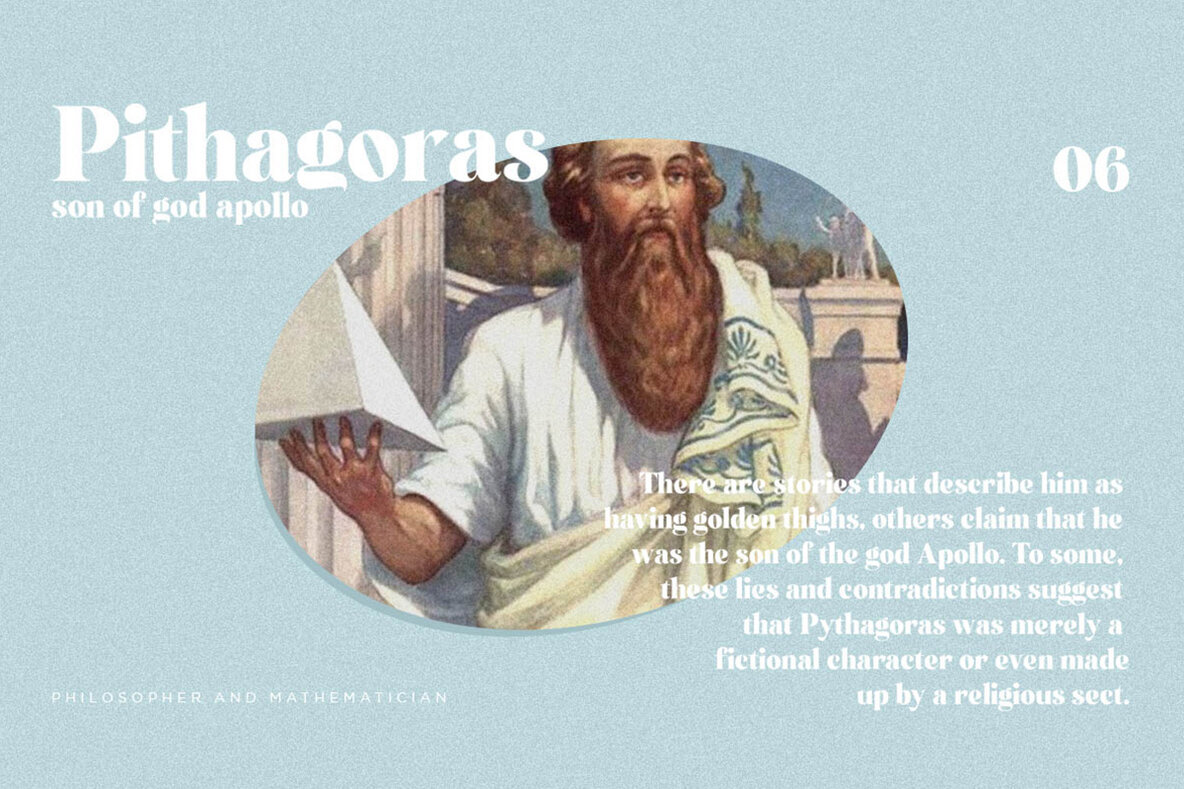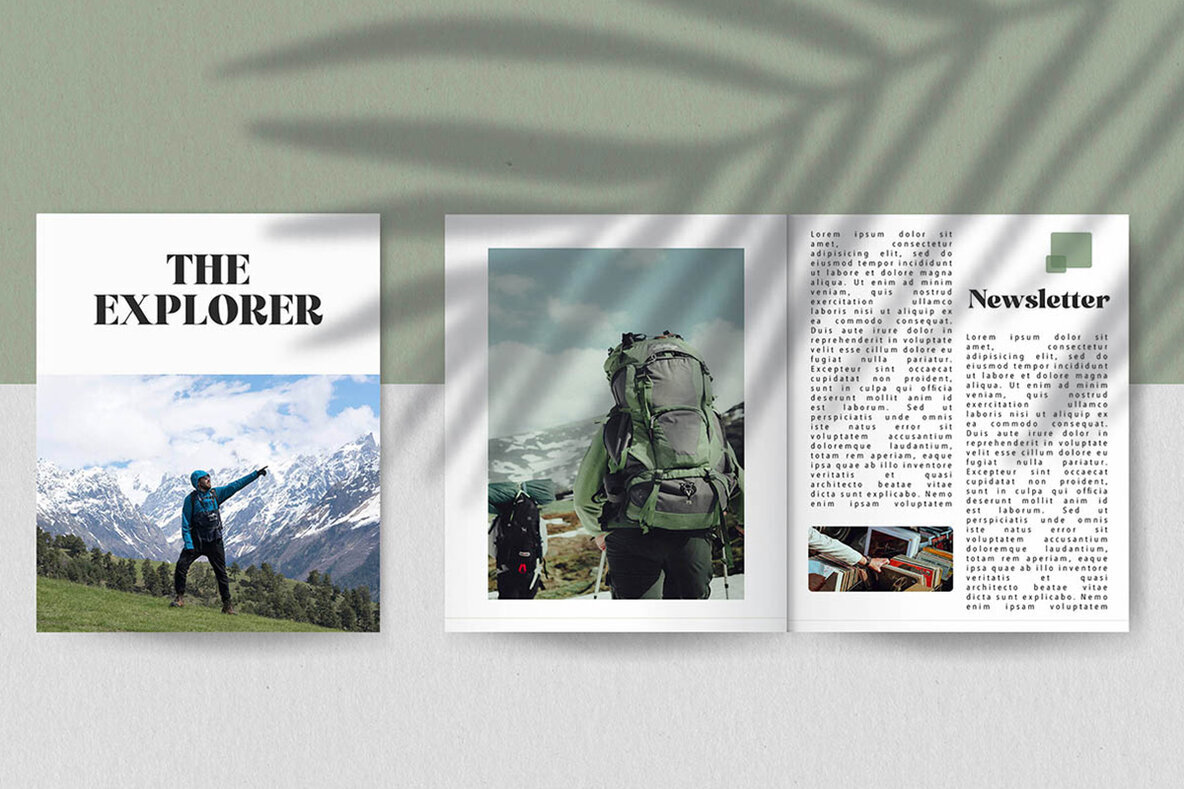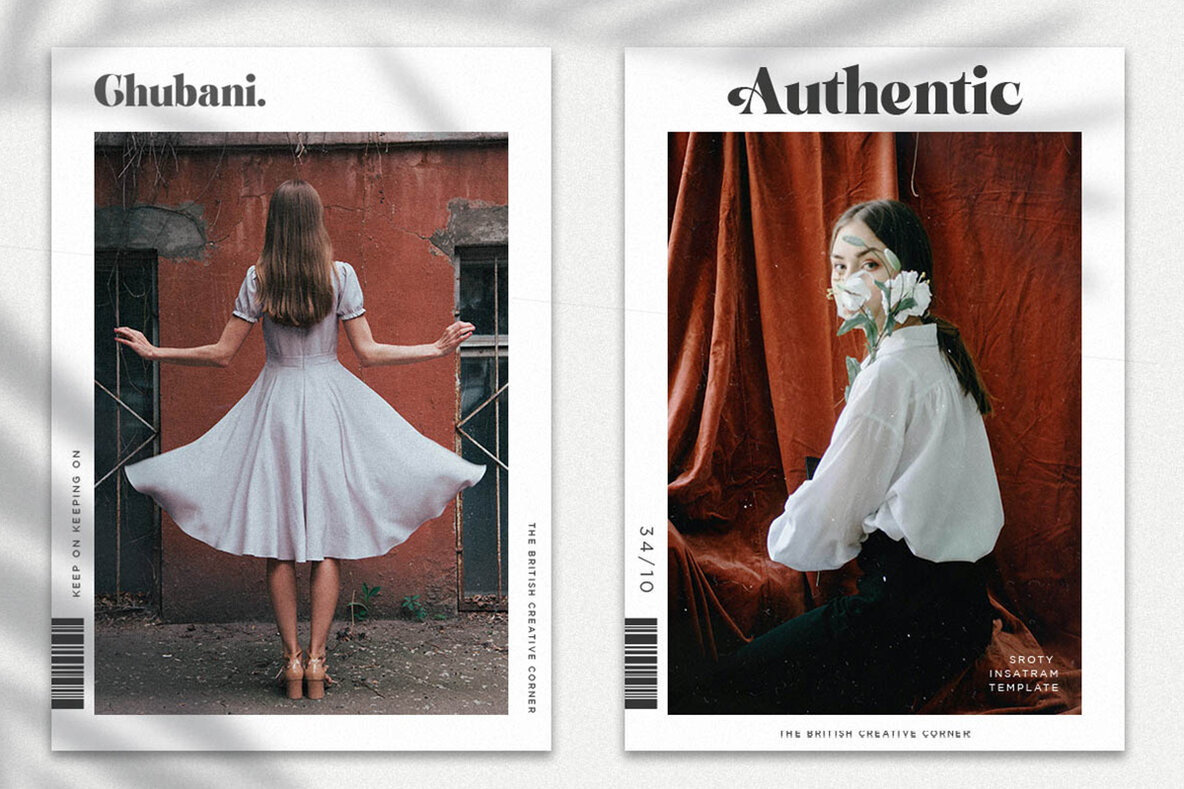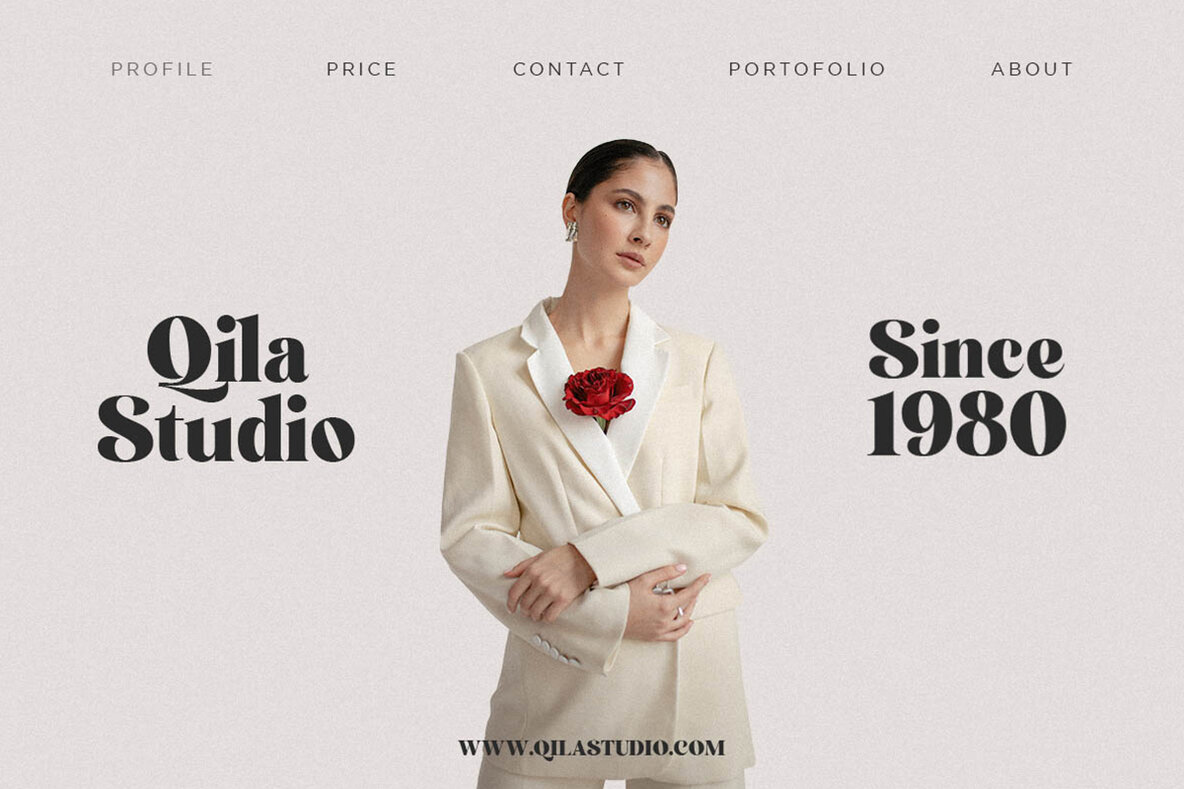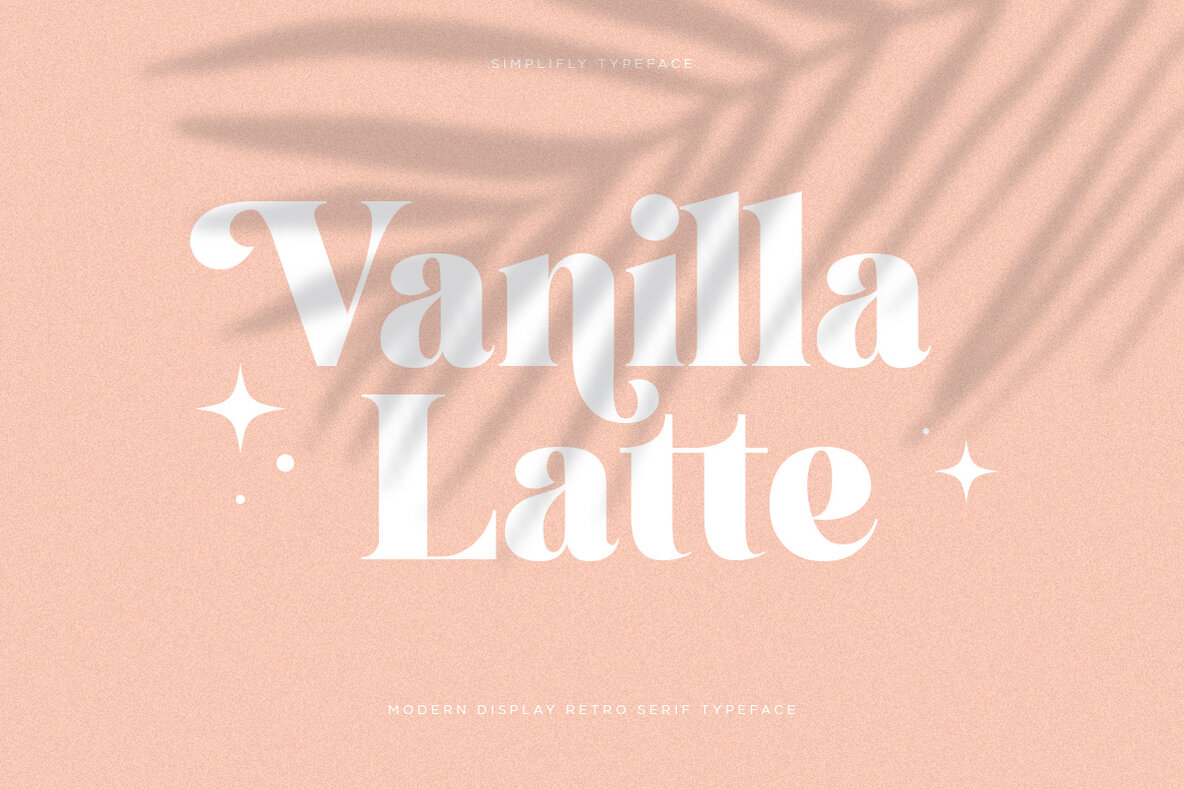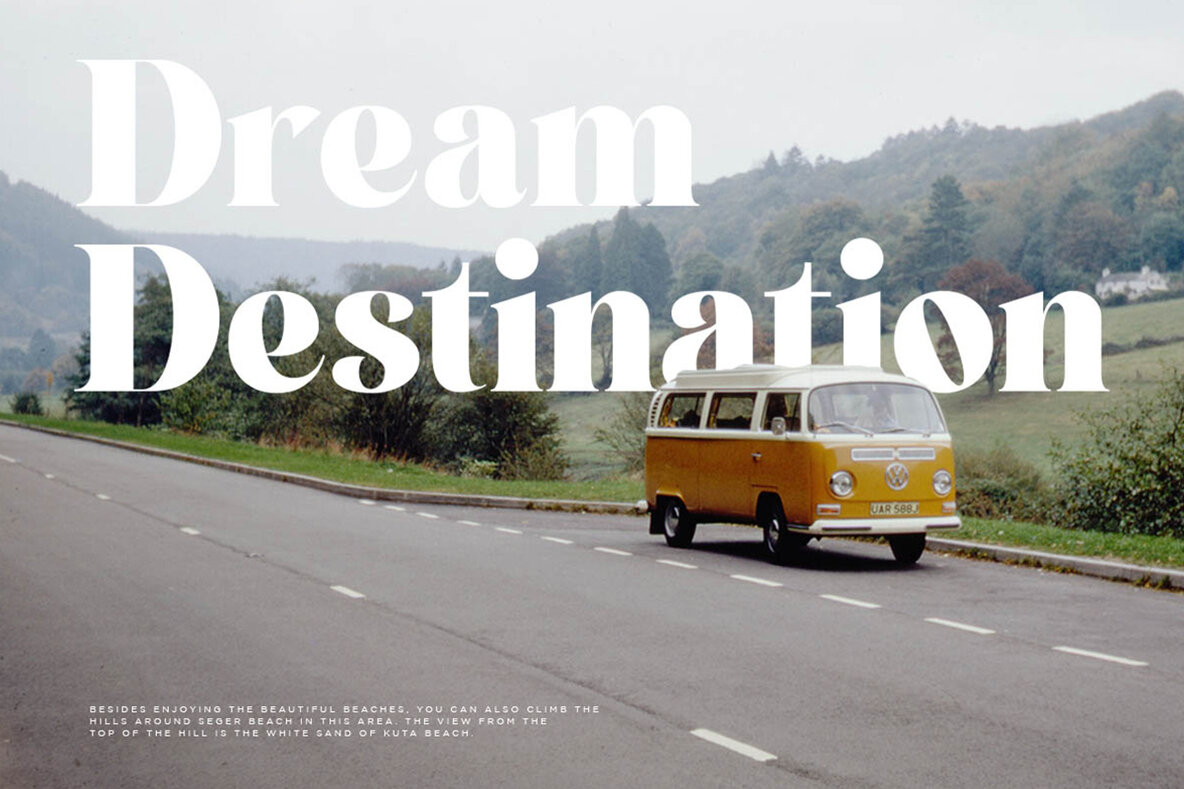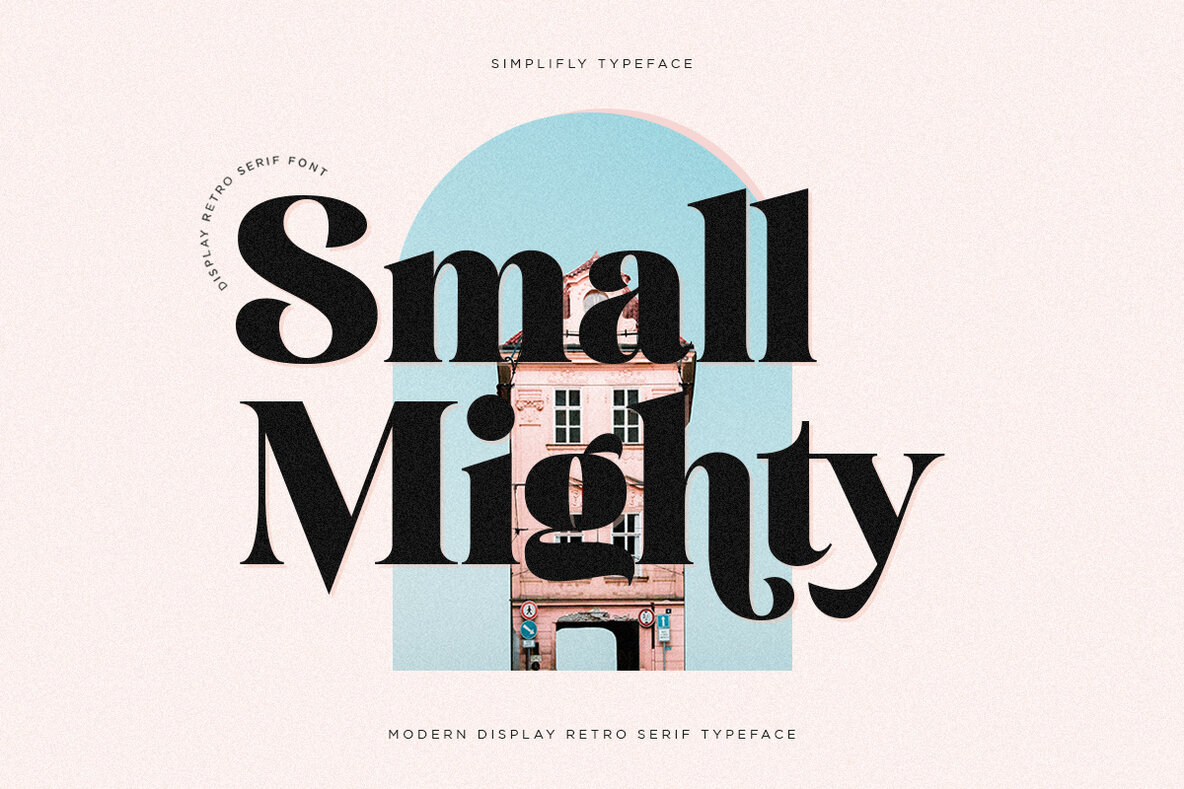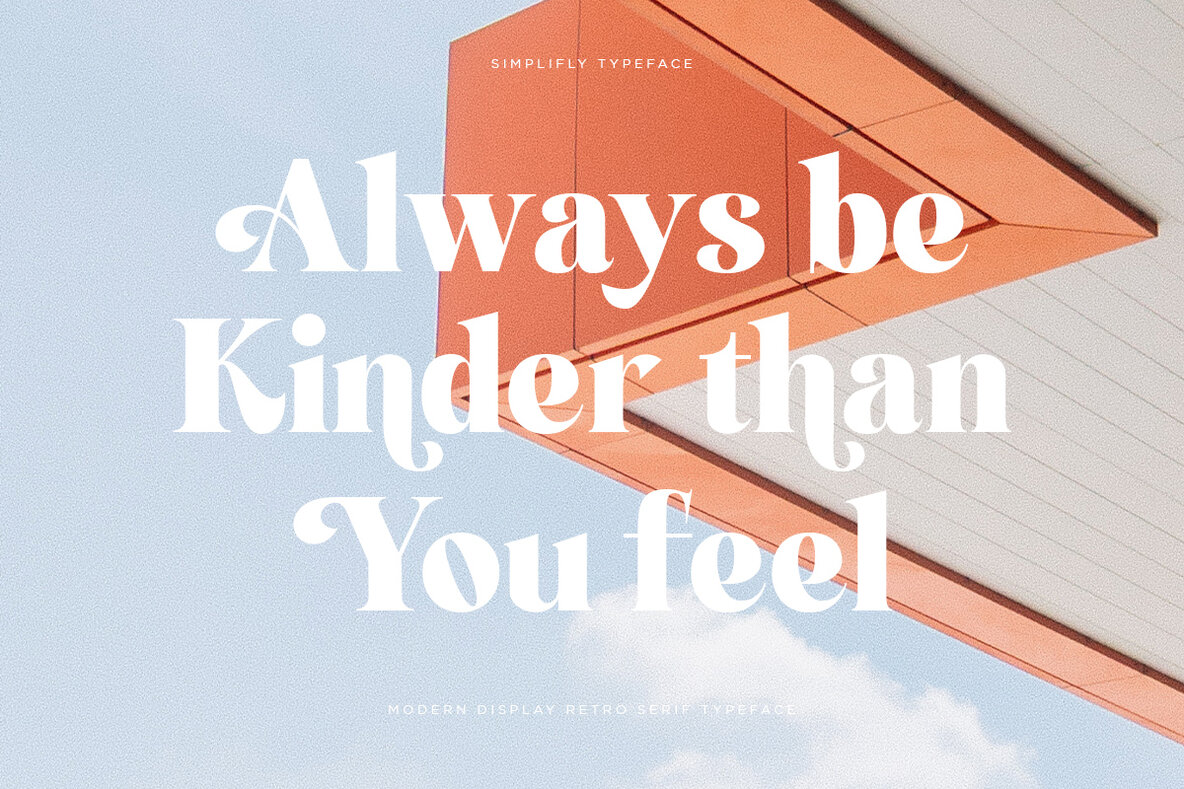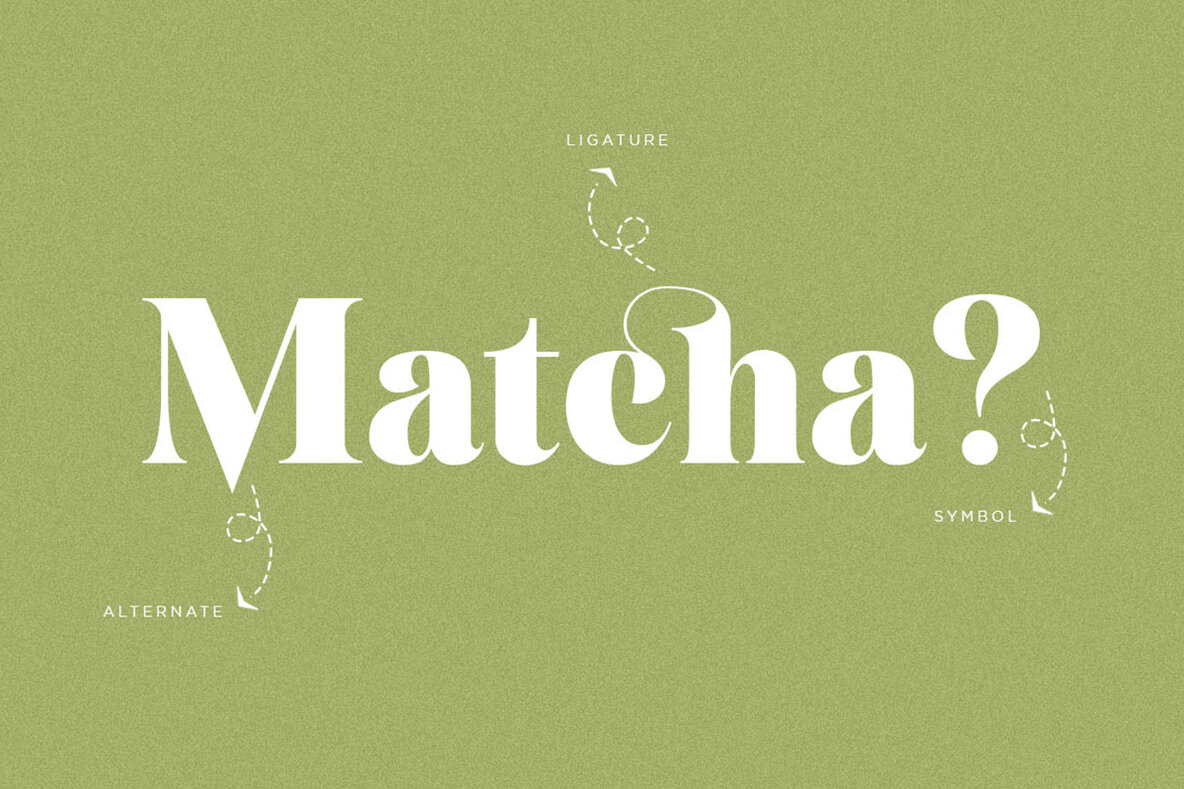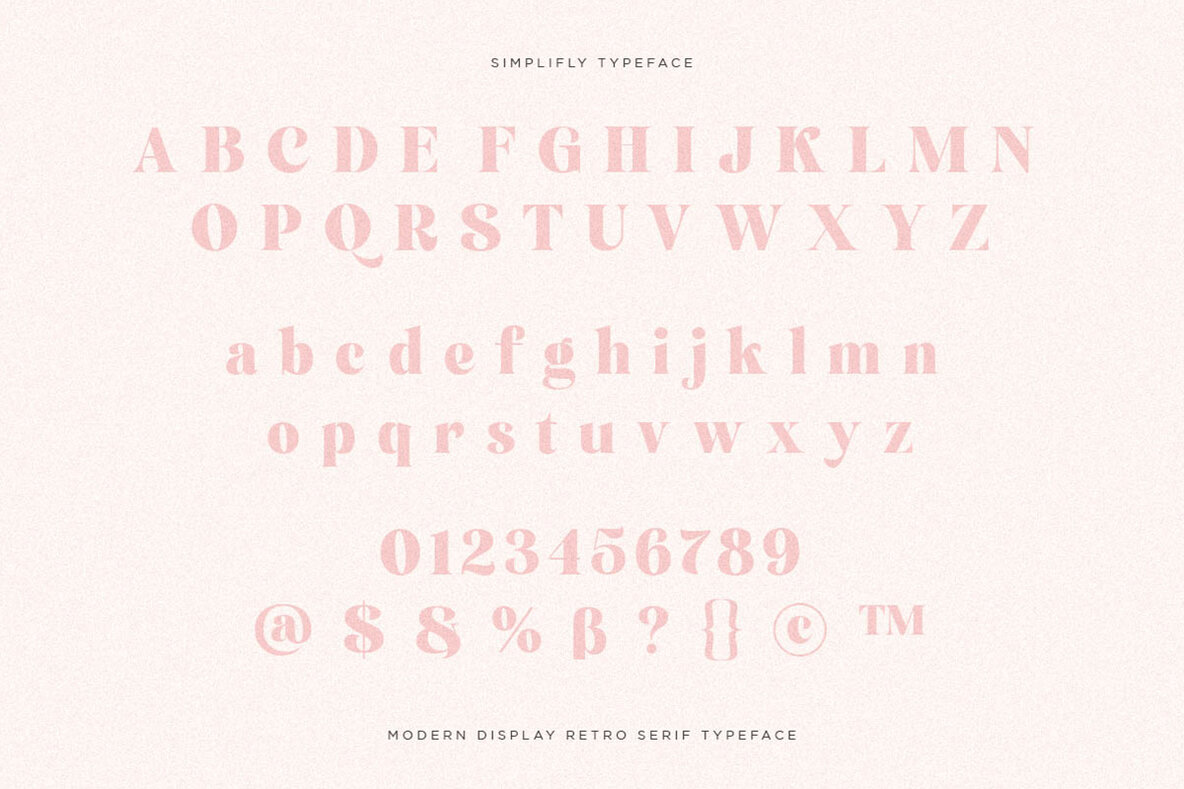
Simplify Cheek Font
Simplify Regular
Simplify by Pentagonistudio brings a contemporary twist to display fonts, drawing inspiration from stylish and cheeky aesthetics. This font is designed to add a unique flair to your creative projects, standing out with its bold yet refined character. Simplify is perfect for a wide range of applications, offering flexibility while maintaining clear constraints. The font permits installation on two computers per user under a desktop license. No special software is needed; Simplify integrates seamlessly with standard programs and web applications that support typical fonts.Simplify: Modern Display Font with Cheeky Edge